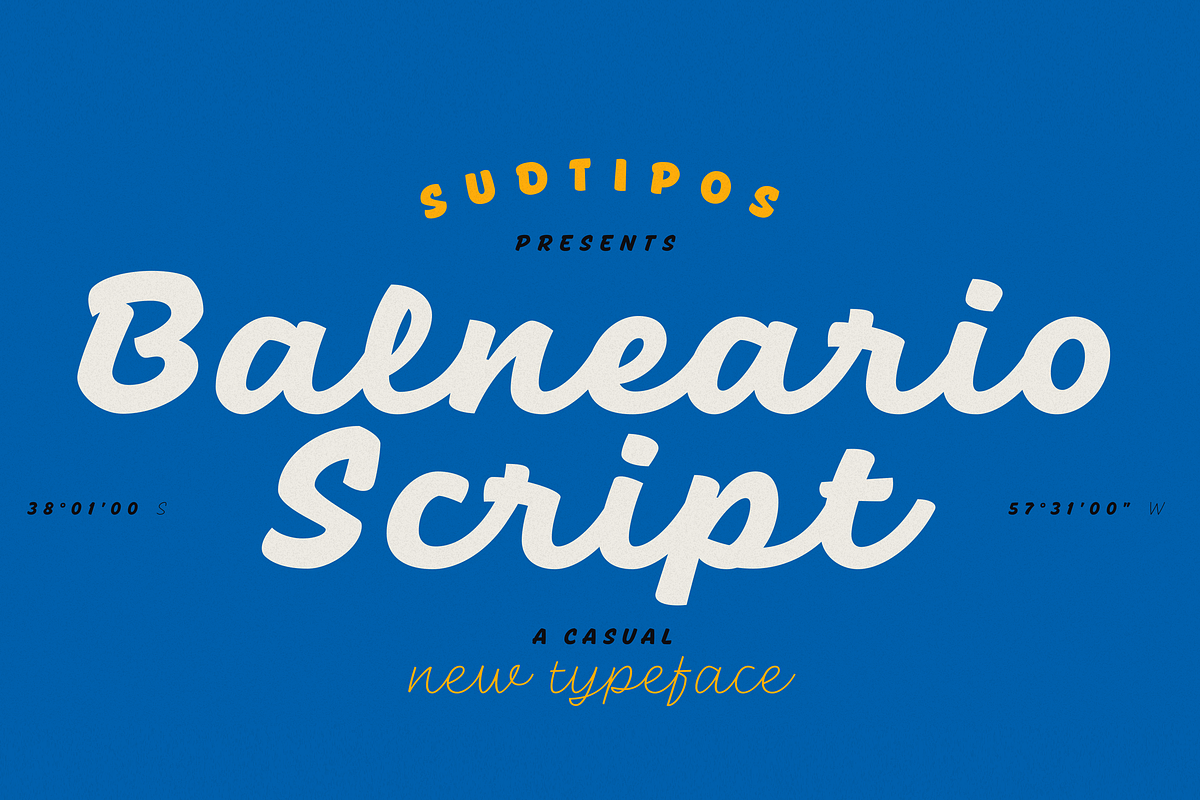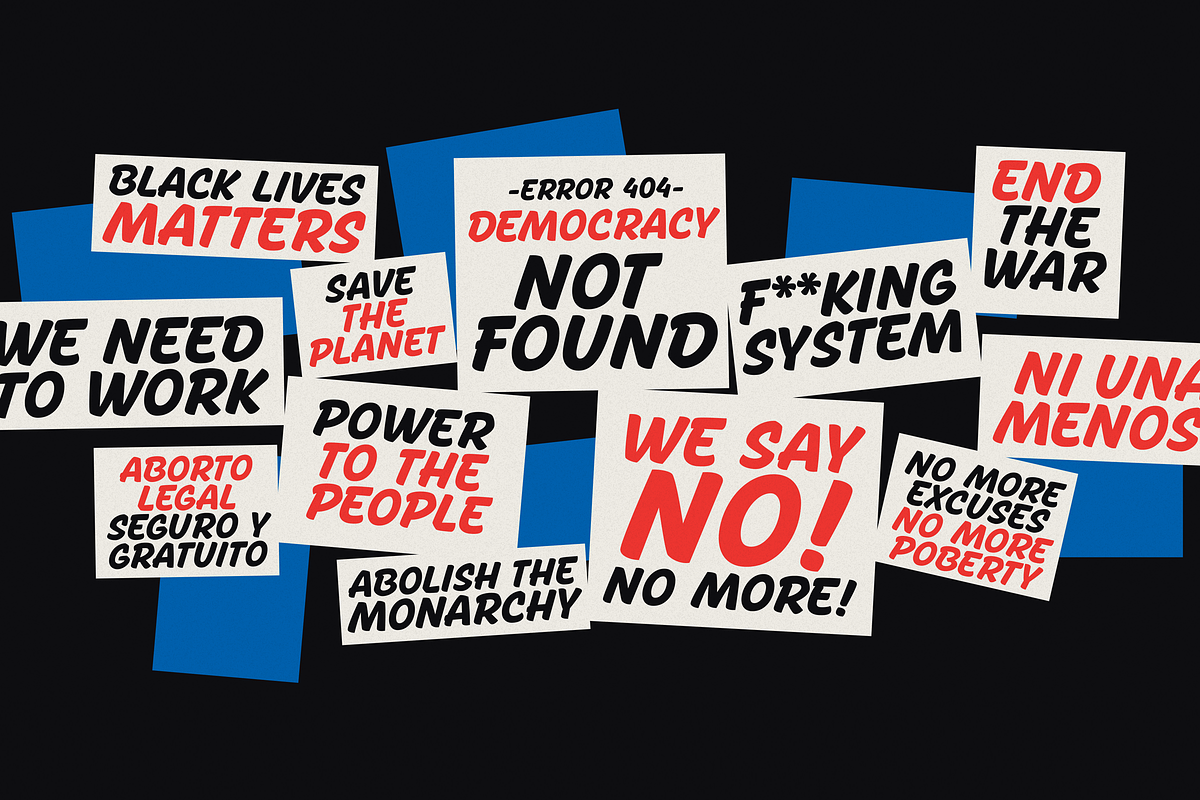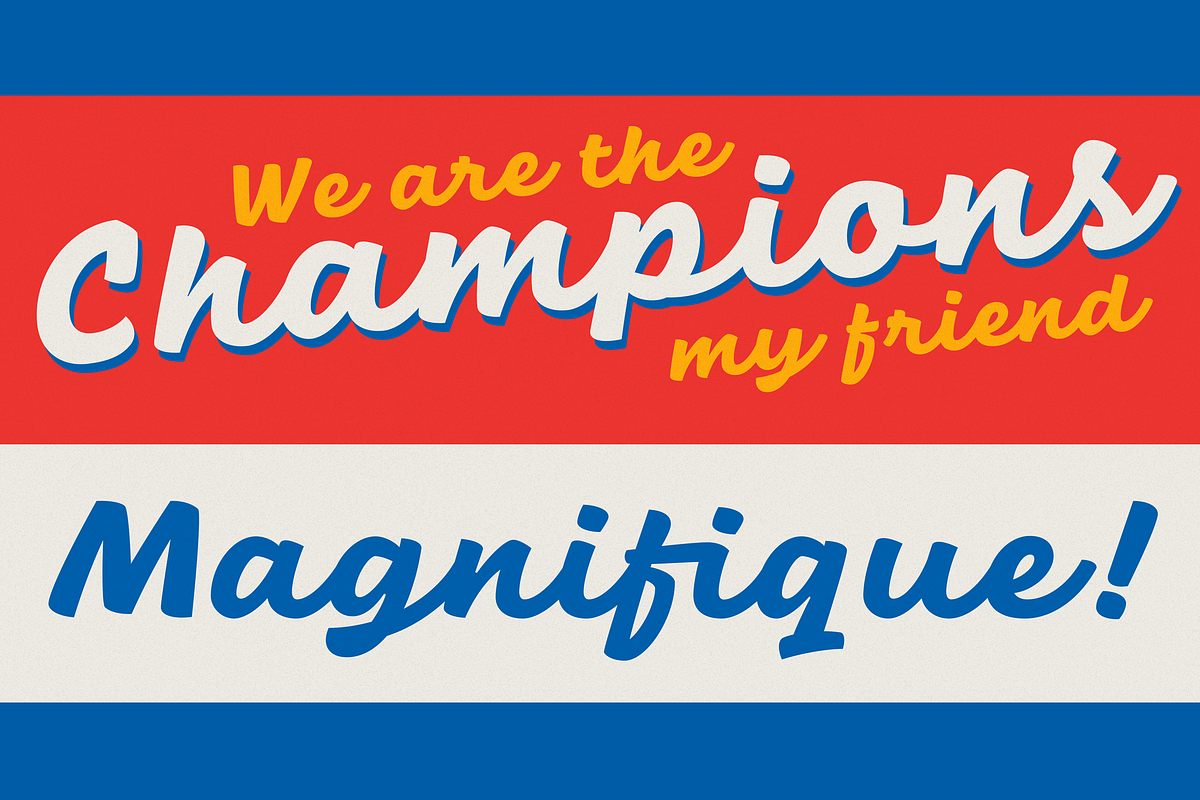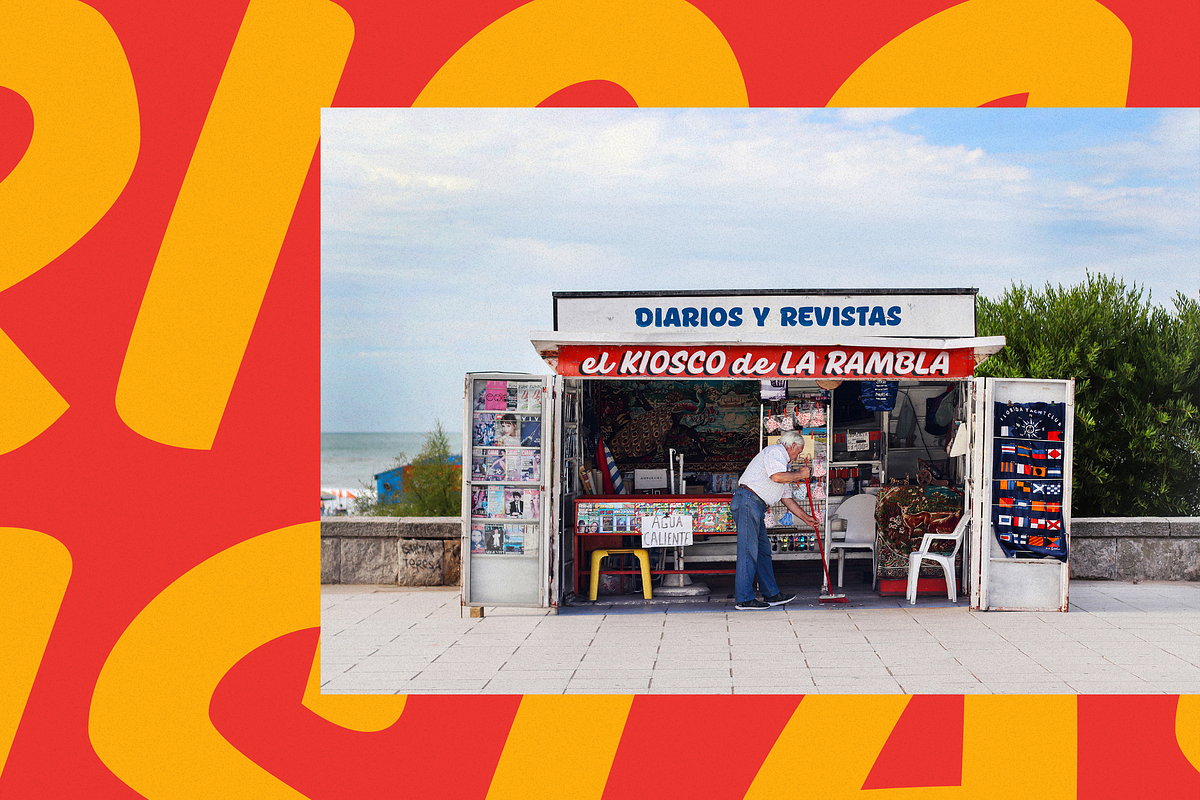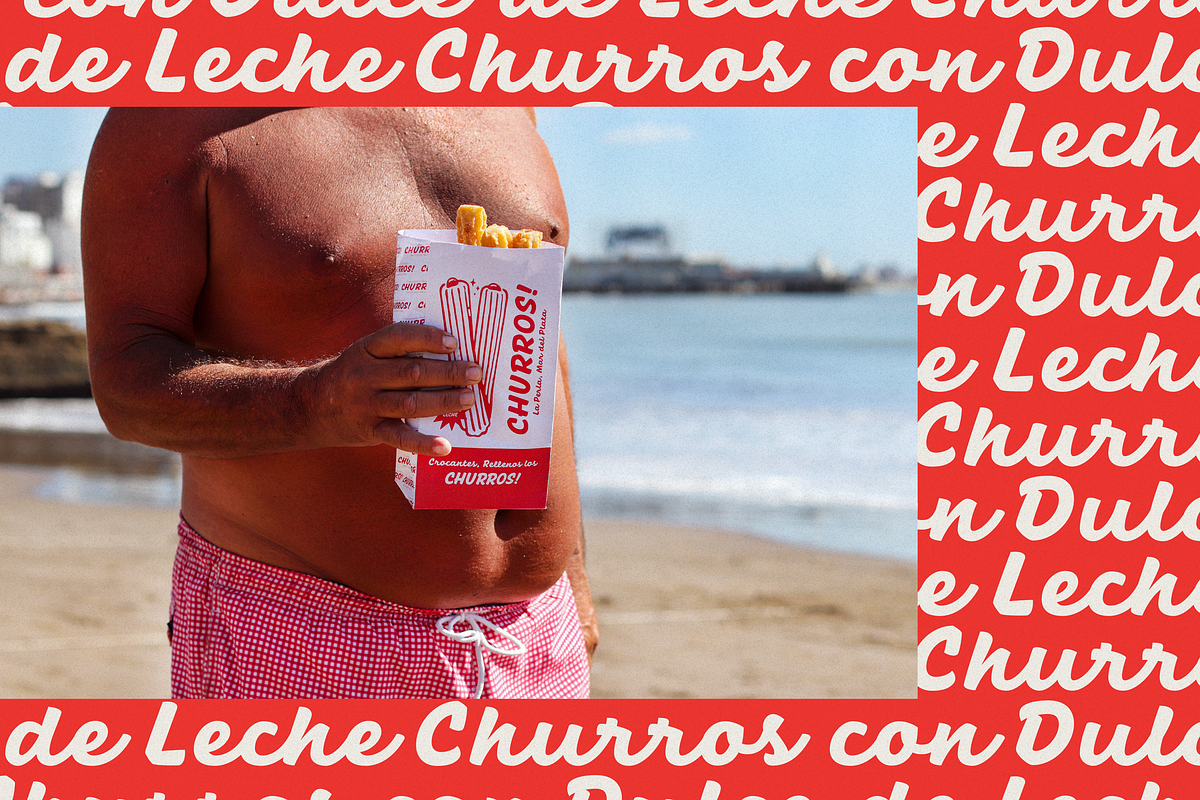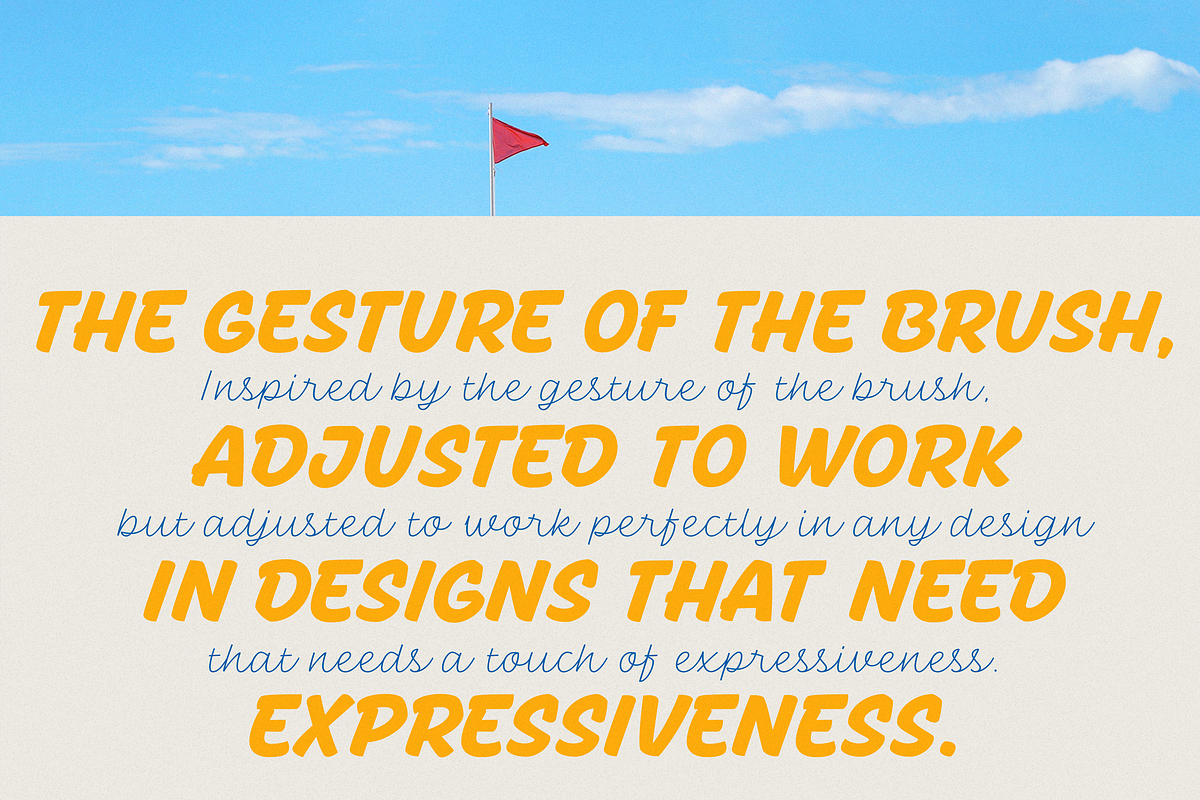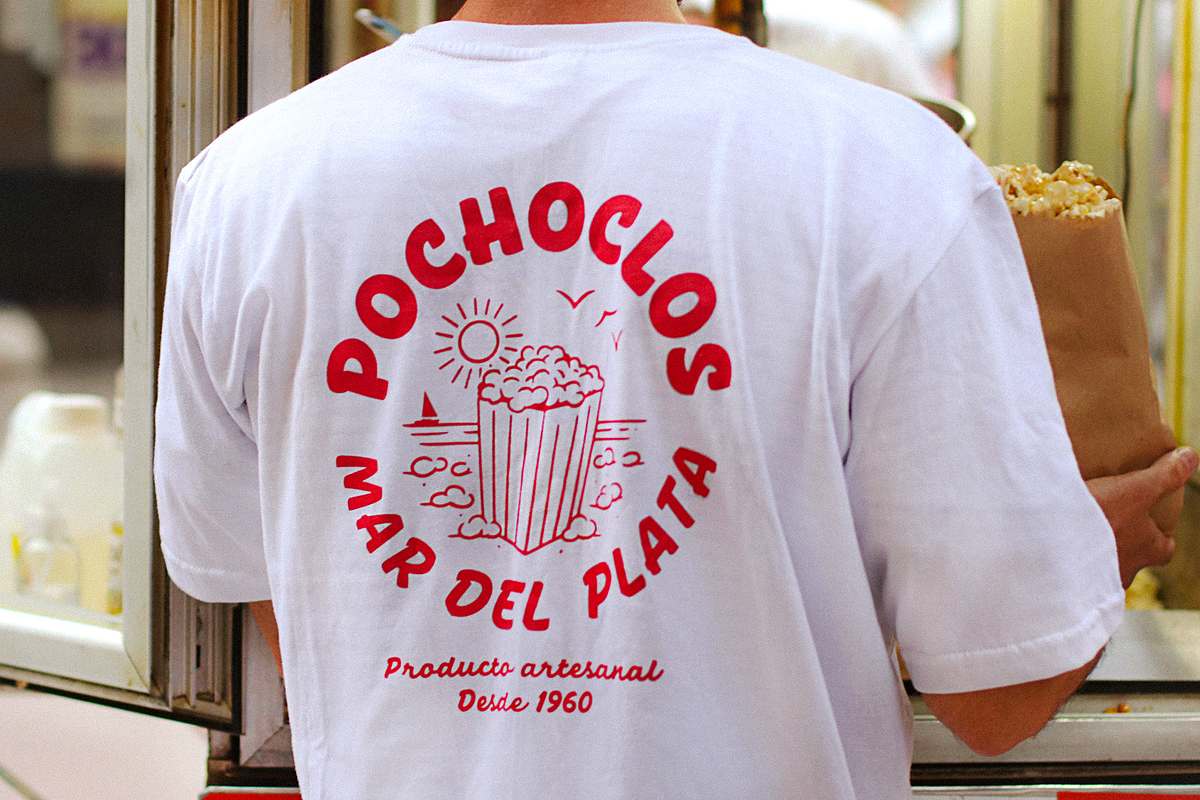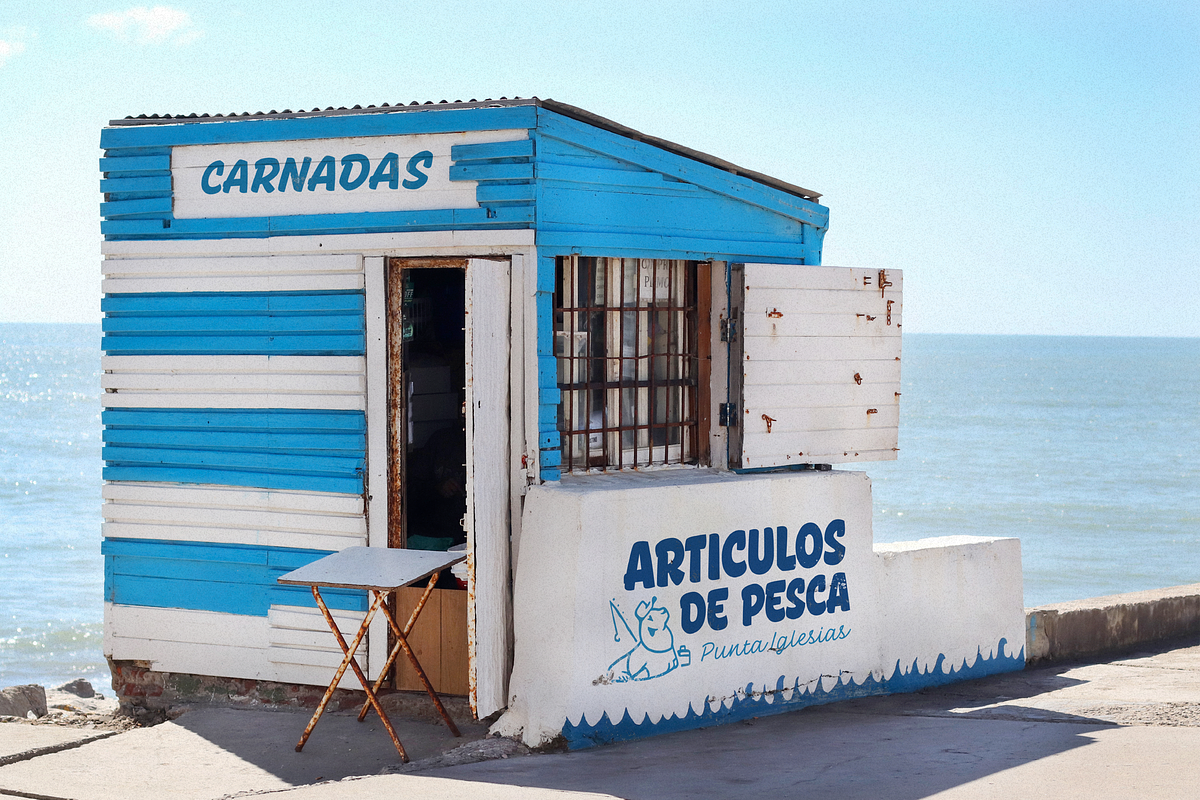
Balneario Script
Cities often have their own voice, a voice that can be read... in each location and each business, voice portraying a cultural fabric with an array of manifestations.
Balneario Script is a small tribute to a coastal port and tourist city. Through the Sign Painters, in its golden age, a clear, friendly, practical, and functional way of making itself heard evolved. Far from wanting to be perfect, a typeface seeks to be close, warm, and casual.
Inspired by the gestures of the brush, Balneario Script reverts to the use of “Casual Letters” so used by Sign Painters. In this adaptation, we sought to adjust its morphology to optimize its performance in small formats and extend the system to include lower case letters as part of the set.
The set of fonts has two script weights in addition to an all caps version. The design emphasizes creating a harmonious morphological criterion.
Friendly, rhythmic, and with a firm stroke “Balneario Script” is unique, ideal for headlines and short texts that need to be gestural but simple and highly functional. This typeface was designed to be used in promotional posters or for relaxed and fun Packagings.
Balneario Script goes beyond constructive or functional aspects. It seeks to capture the smell of the sea, the warm summer breeze and the nostalgic feeling of a city that from its daily life, knew how to forge a unique personality. This atmosphere allows it to host millions of tourists year after year, and with them reinforce their spirit each summer.